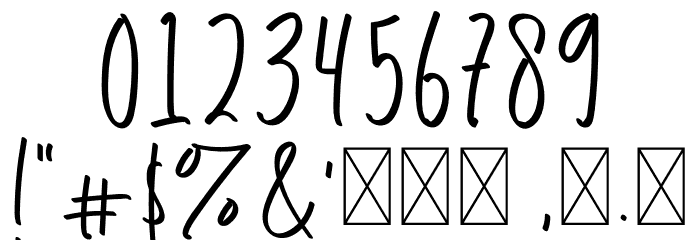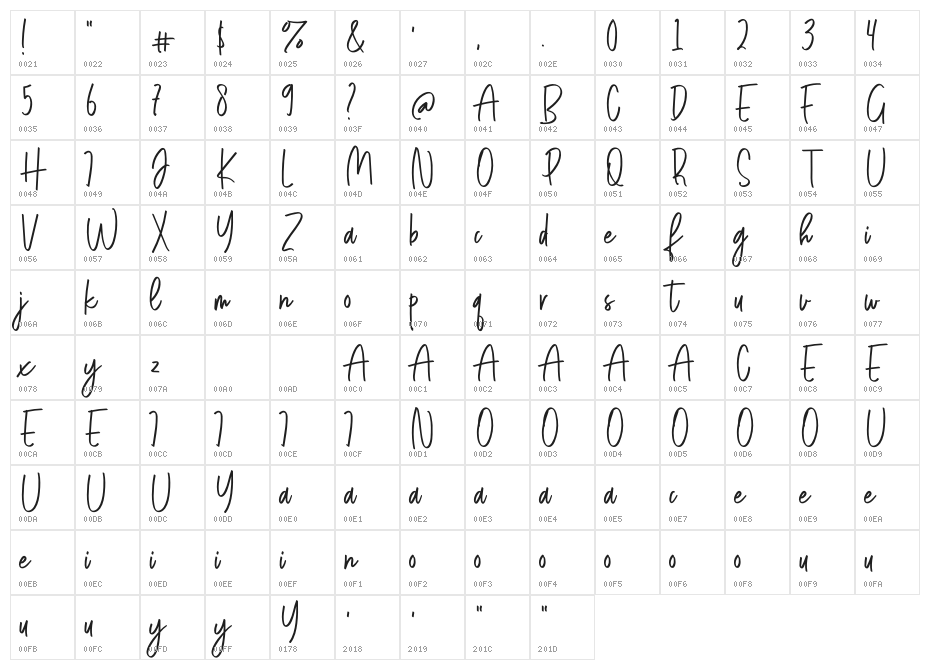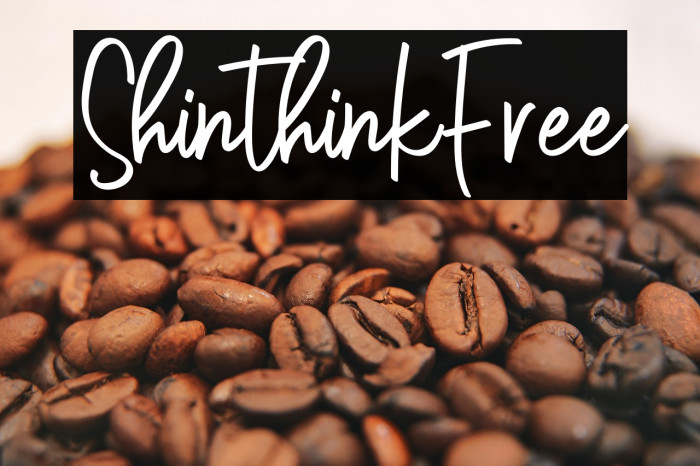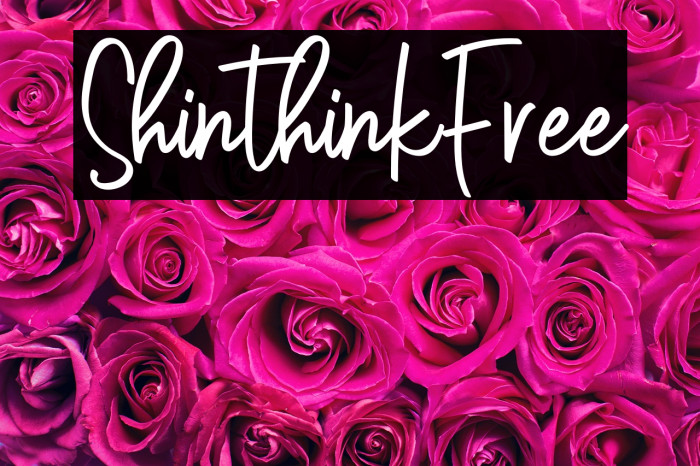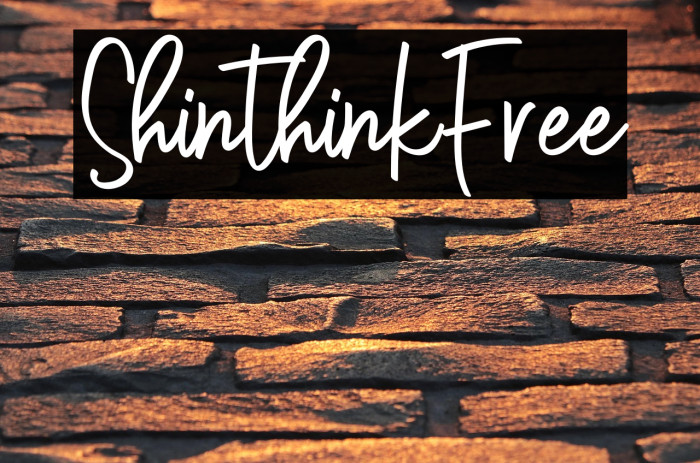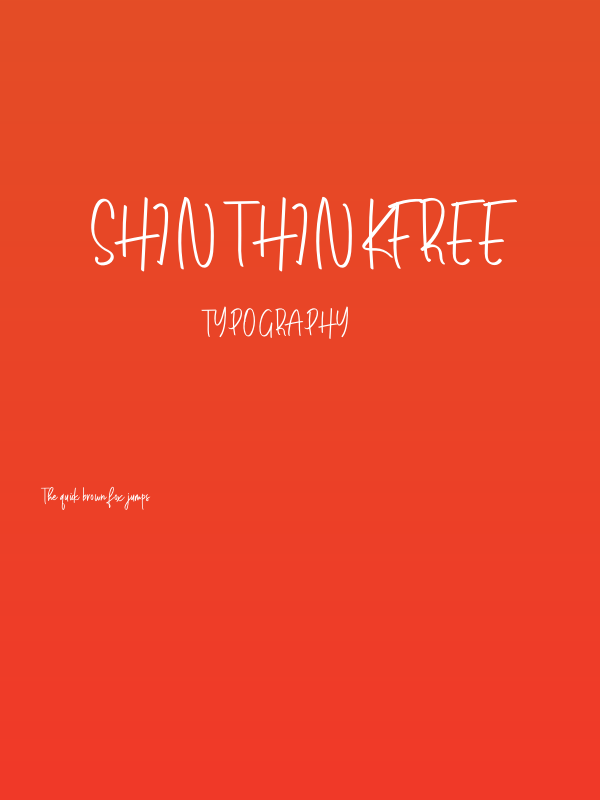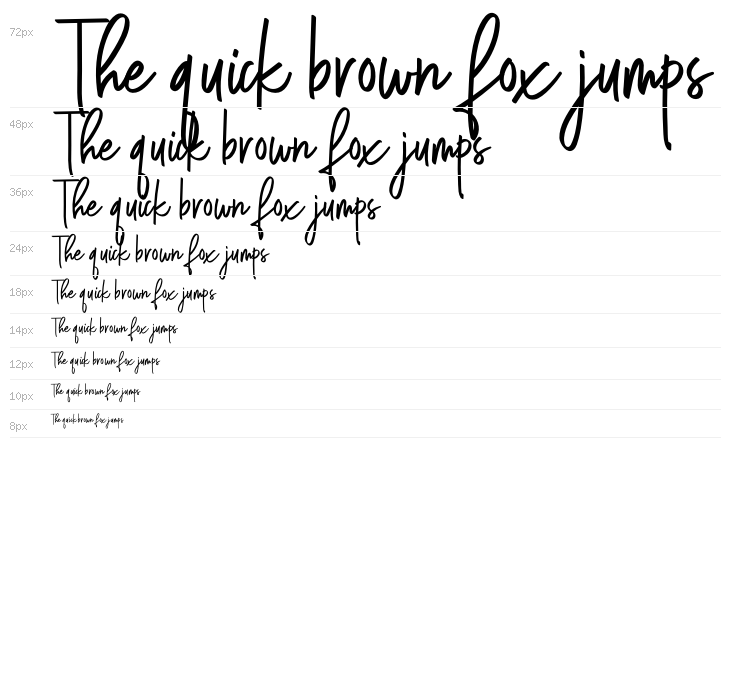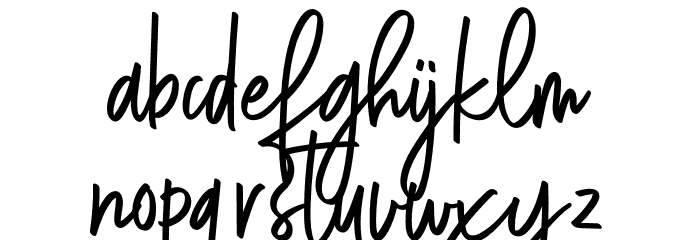
ShinthinkFree Font
ShinthinkFree Description
This font features a playful and casual handwritten style, characterized by its tall, narrow letters and slightly irregular strokes. The uppercase letters are elongated and maintain a consistent height, while the lowercase letters exhibit a more fluid and dynamic form. The numbers follow the same playful style, making them easily readable yet visually interesting. Special characters are included, maintaining the overall whimsical aesthetic. The font's informal and friendly appearance makes it suitable for creative and personal projects.